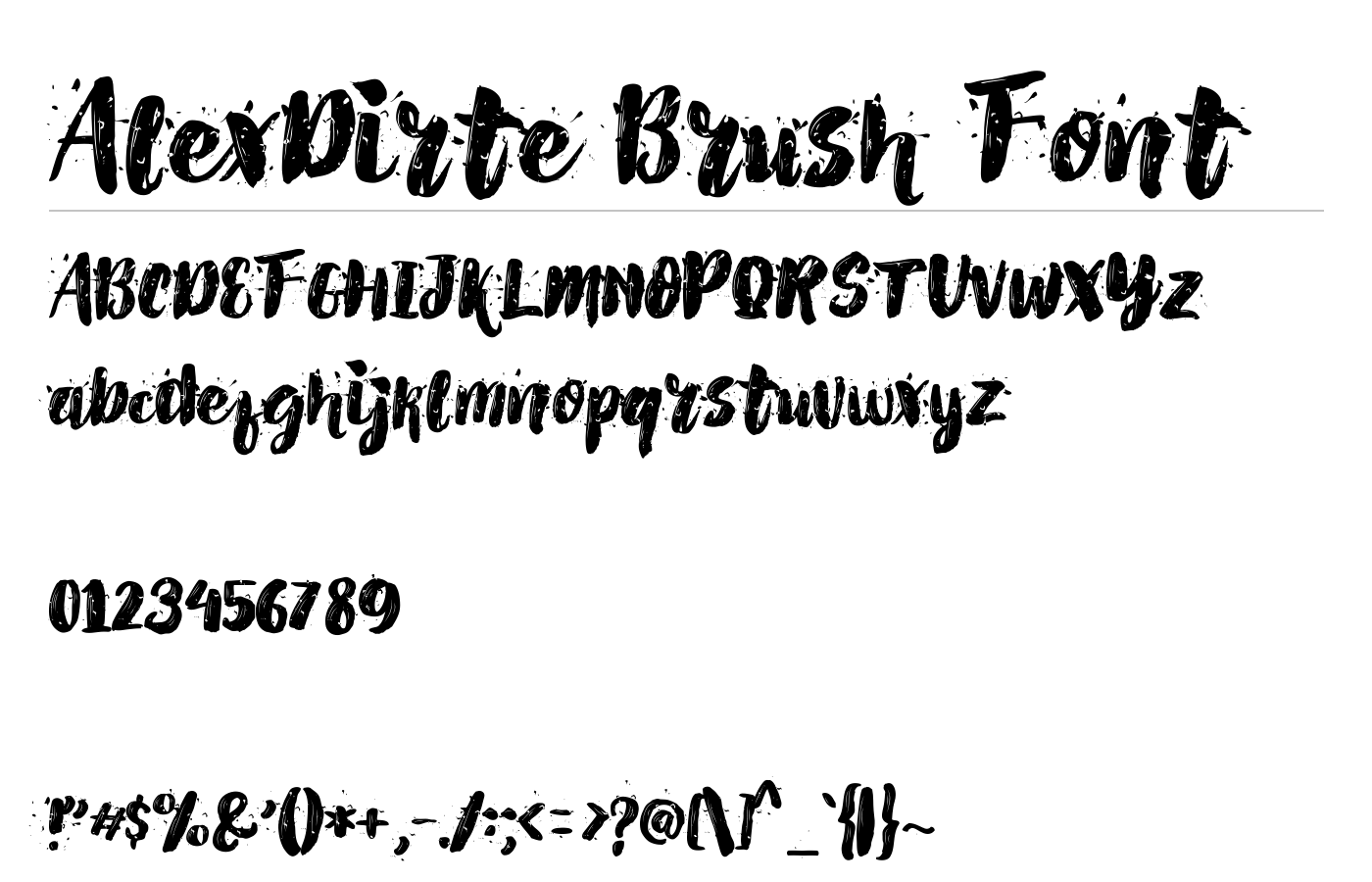
AlexDirte Brush Font is a bold, expressive brush script that features a rough, textured style mimicking hand-painted strokes with an energetic and dynamic feel. Its irregular edges and splattered effects give it a raw, artistic personality, making it ideal for creative and informal designs that need a vibrant, edgy look. This font works great for posters, branding, and packaging where a lively, handcrafted touch is desired.
AlexDirte Brush Font
About AlexDirte Brush Font
| Font family | AlexDirte Brush Font |
| Designer | Debut Studio |